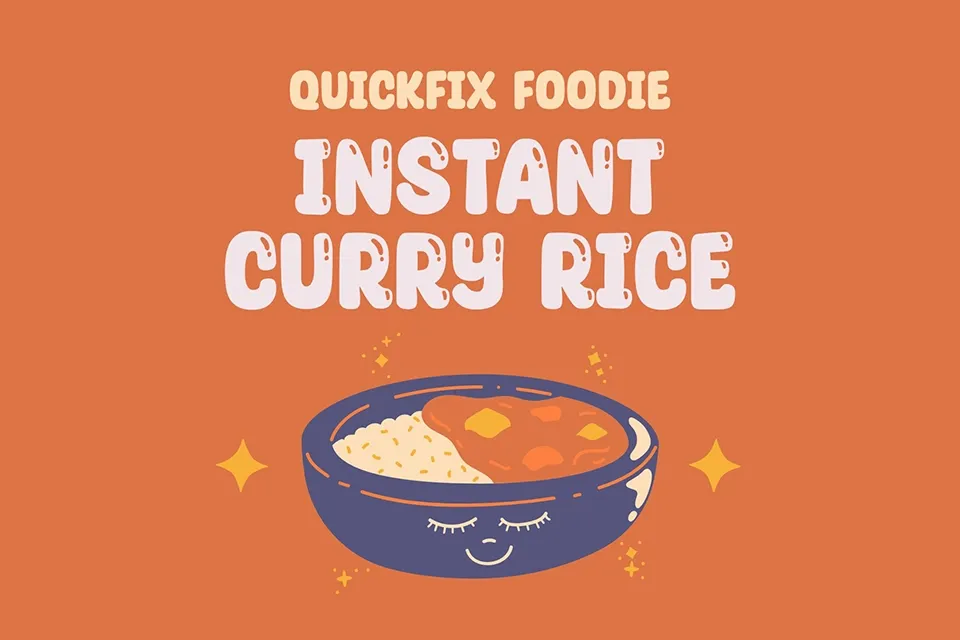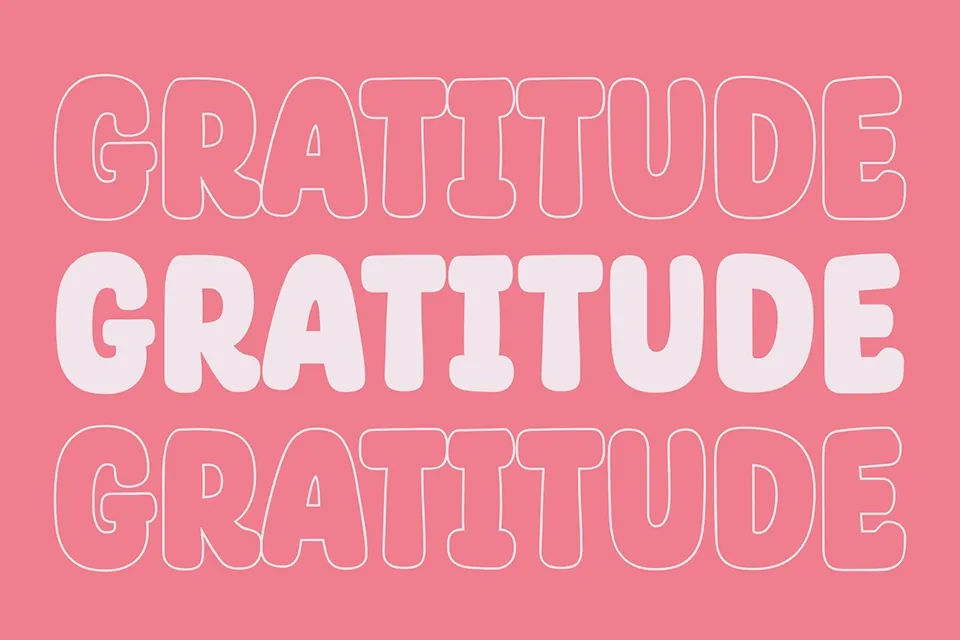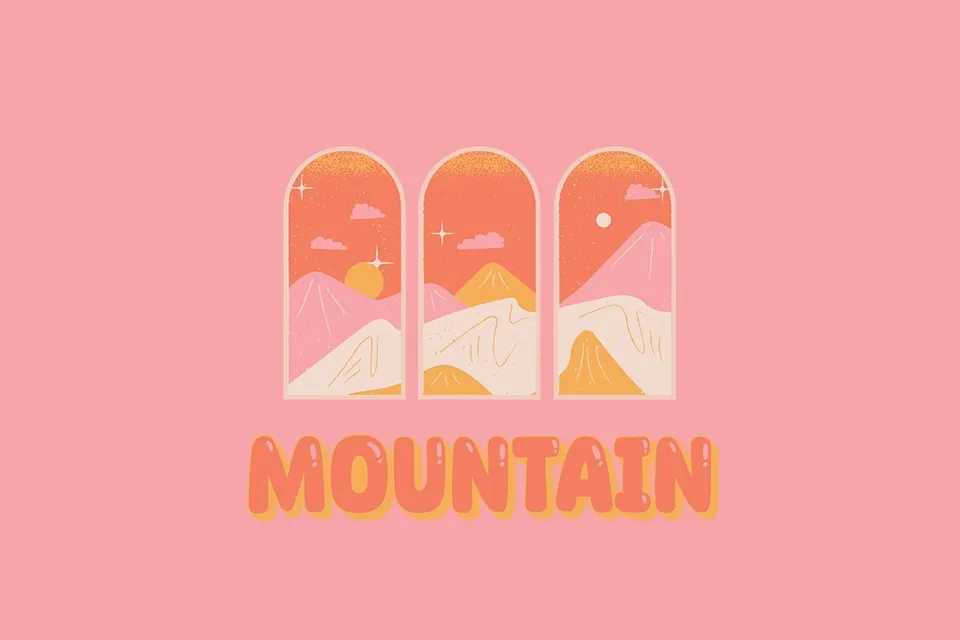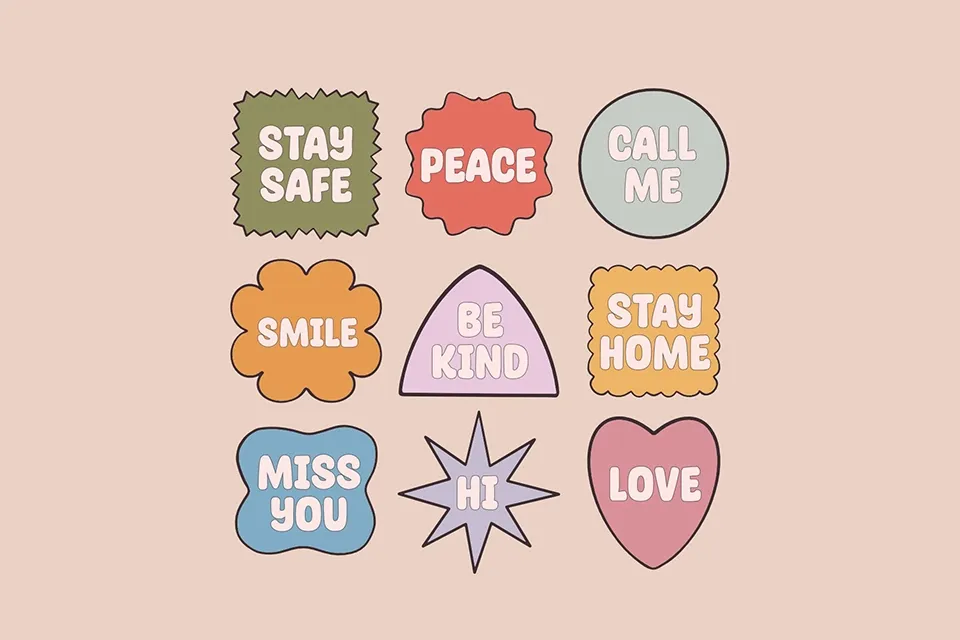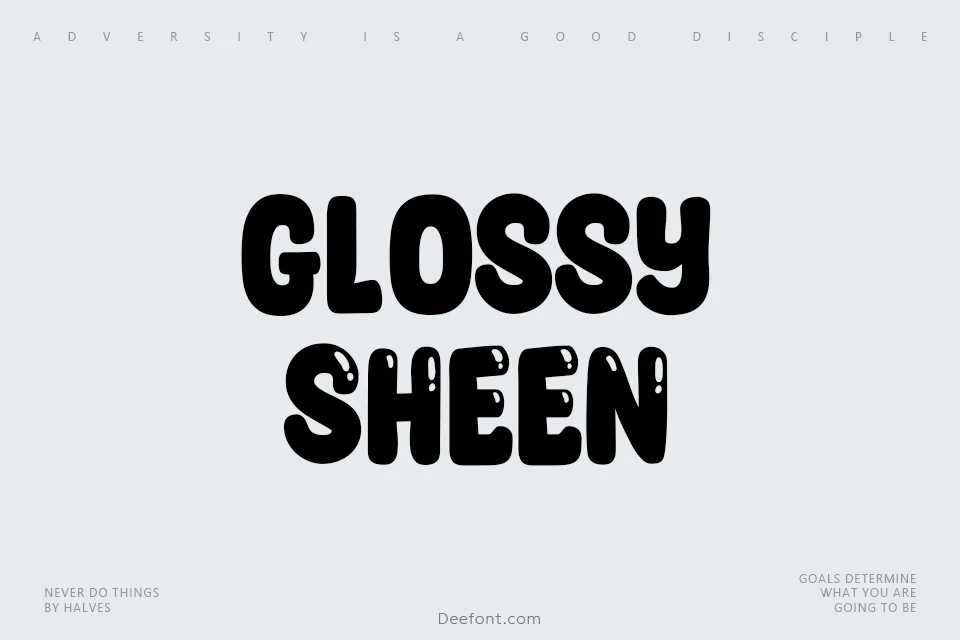
Glossy Sheen Font
Glossy Sheen Font is a fun and thick layered font designed to bring a playful shine to your projects. This versatile typeface comes with four distinct layers: Regular, Shine, Shadow, and Outline, allowing you to easily mix and match for eye-catching effects. With its bubbly, cartoonish letterforms, Glossy Sheen adds a touch of retro charm and dimension. It’s perfect for making a statement on t-shirts, packaging, branding, posters, greeting cards, and quotes. Add a unique, vibrant, and layered look to your creative work with the delightful Glossy Sheen font family.